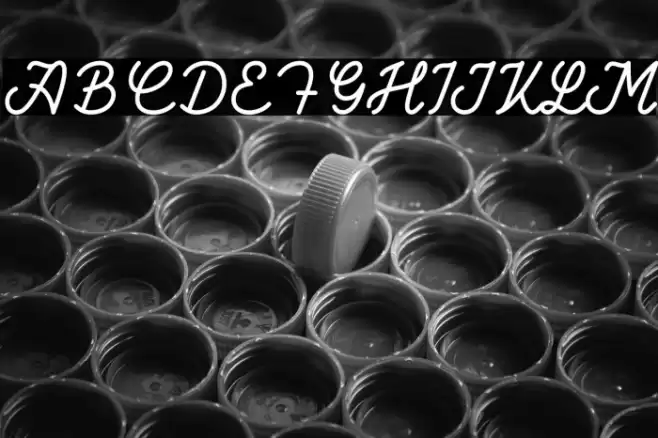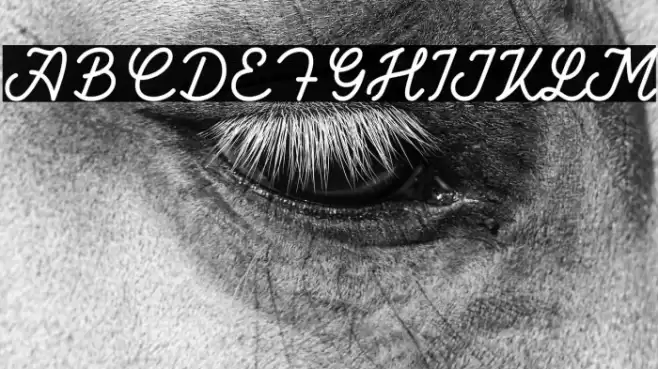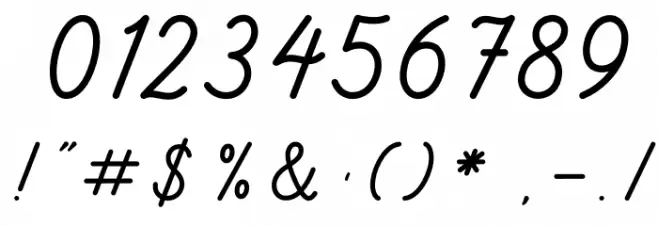
Bathavia Font
Bathavia Description
This font features a flowing, cursive style that exudes elegance and sophistication. The characters are interconnected, creating a seamless and fluid appearance that is both graceful and dynamic. The uppercase letters are slightly more ornate, with gentle curves and loops that add a touch of flair, while the lowercase letters maintain a consistent rhythm and balance. The numerals are clear and legible, complementing the overall aesthetic without detracting from its elegance. Special characters are thoughtfully designed, ensuring they blend harmoniously with the rest of the typeface. This font's smooth lines and balanced proportions make it ideal for projects that require a touch of class and refinement.
A flowing, elegant cursive font with interconnected characters and graceful curves from Uncategorized fonts.
- Font: Bathavia
- Proposed Projects: Ideal for wedding invitations, elegant branding, personal signatures, and upscale packaging.
- Overall Style: Elegant
- Use Case: Logos, Invitations, Branding